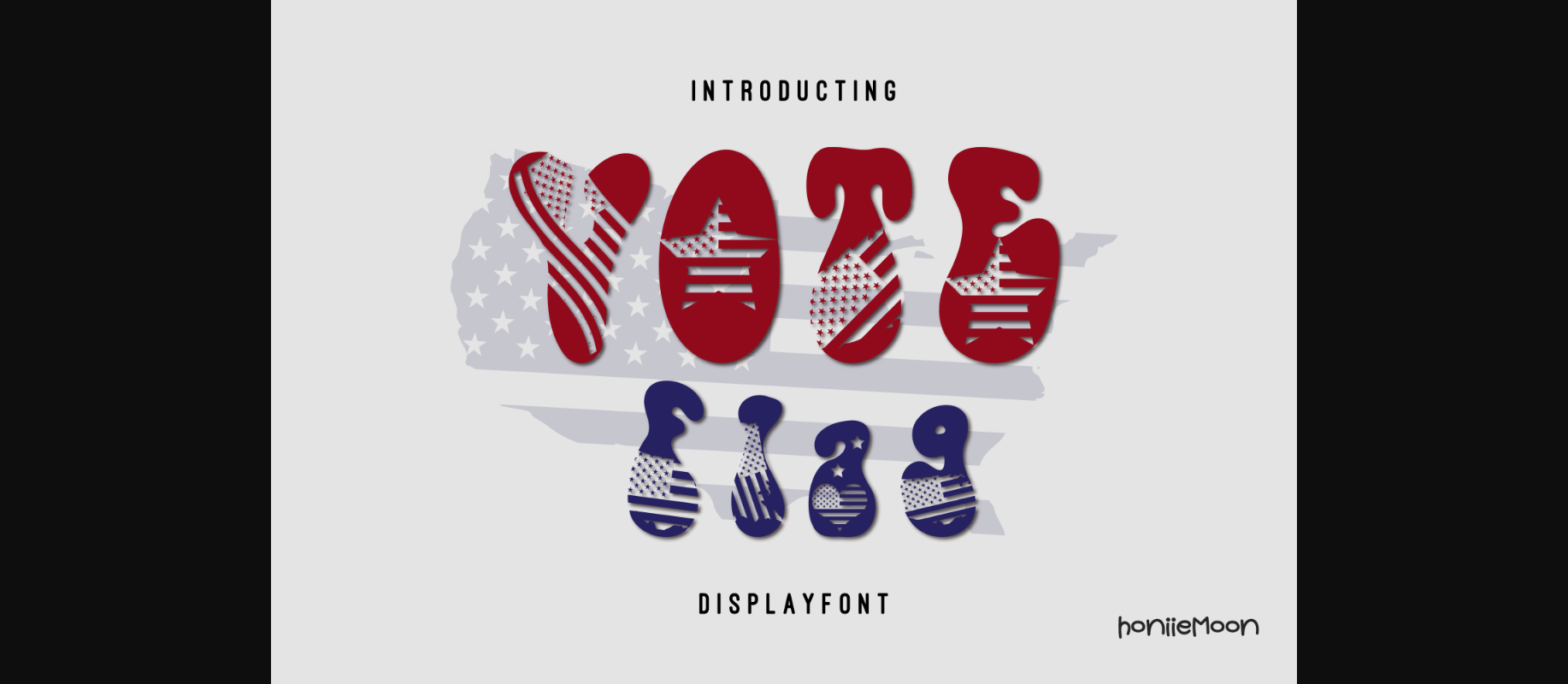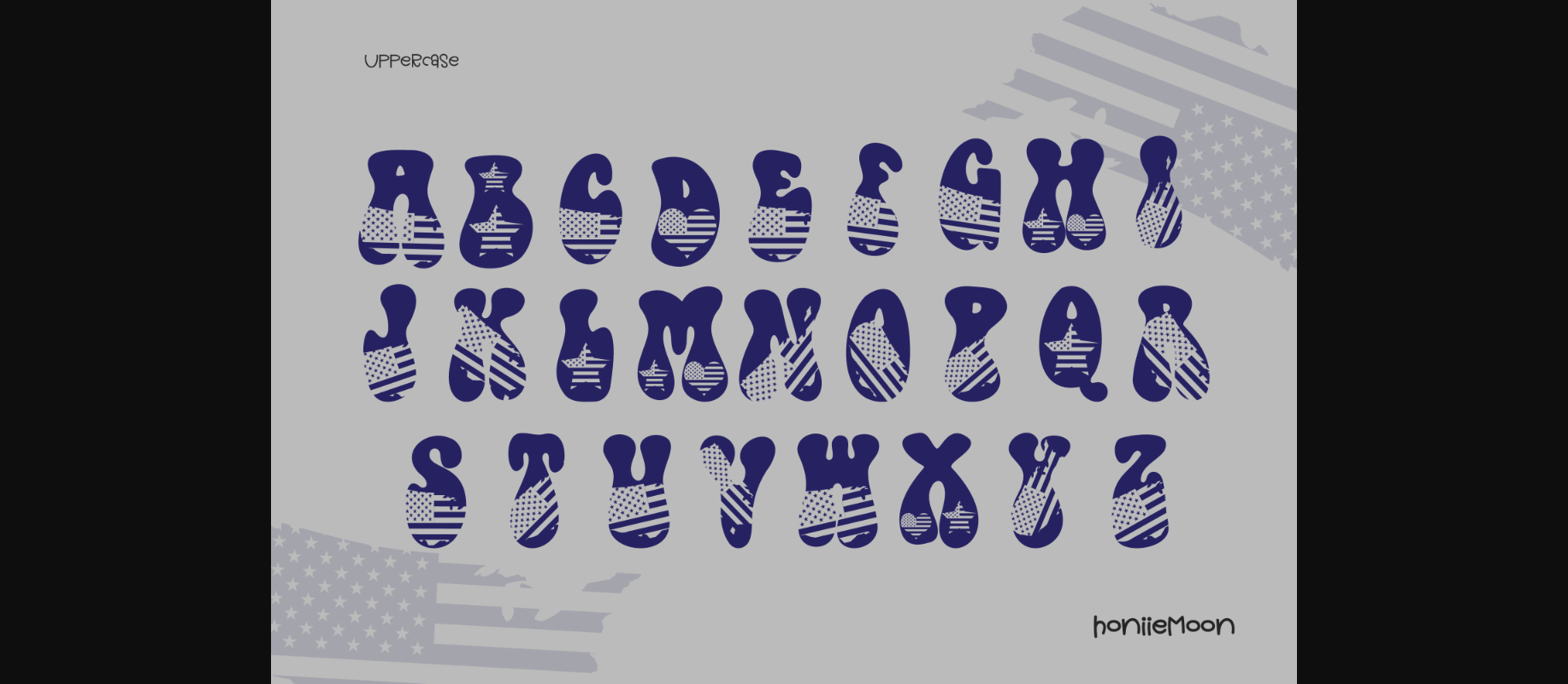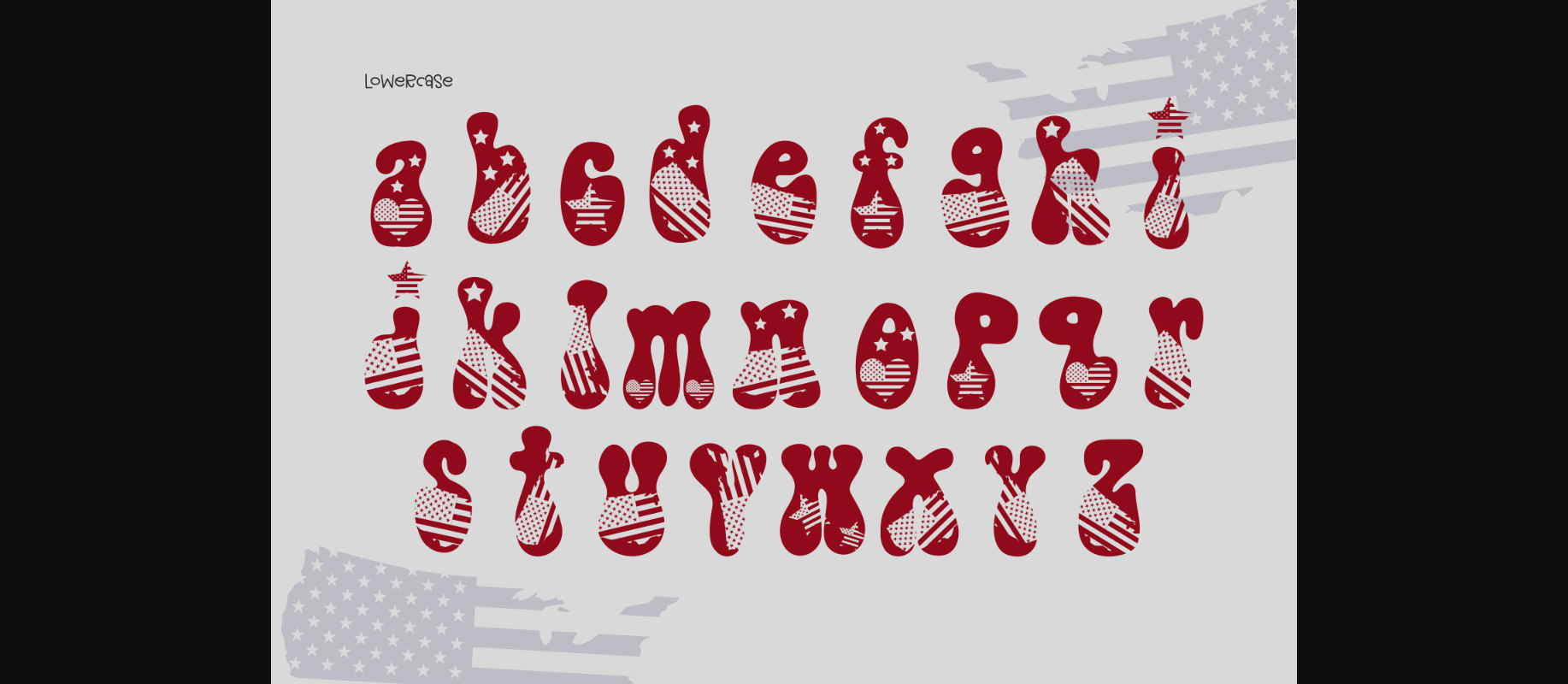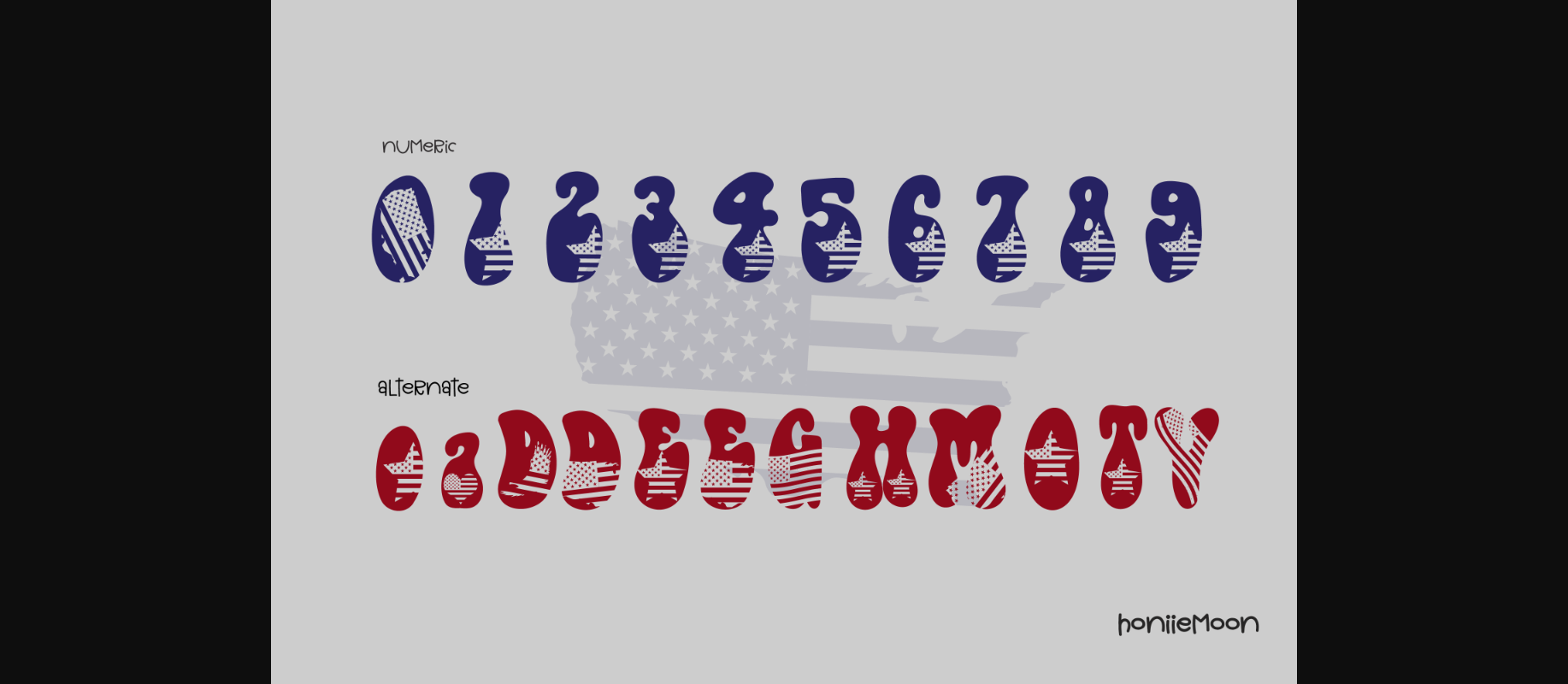
HomeDecorative FontsVoteflag Font Decorative Fonts Voteflag Font FacebookXPinterestWhatsApp 1 of 6 ... Voteflag Font Poster 2... Voteflag Font Poster 3... Voteflag Font Poster 4... Voteflag Font Poster 5... Voteflag Font Poster 6... About Voteflag Font Voteflag is a fun and incredibly unique decorative font. It can be used for various design ideas, particularly those related to the American Election. DOWNLOAD NOW People also explored Sandy Rill Font Alabama Signature Galont Font Emily Notes Font Santha Cruze Font Gebby Font Valentines White Coffee Mug Mock up Ritualist Perfect Sweetness Font 409 0 TagsVoteflag Font Previous articleTurtle FontNext articleAutumn Font LEAVE A REPLY Cancel reply Comment: Please enter your comment! Name:* Please enter your name here Email:* You have entered an incorrect email address! Please enter your email address here Website: Save my name, email, and website in this browser for the next time I comment. Personal Use Free Starborn Font Personal Use Free Read more about this font Lumber Personal Use Free Read more about this font Leadent Script Personal Use Free Read more about this font Bajt Rounded Personal Use Free Read more about this font BLOG Exploring Font Trends Shaping Communication in the Digital Era Fonts, like all design elements, are subject to trends. They play a crucial role in communicating a brand's personality,... Free Fonts Risk: Why Free Fonts Can Be Dangerous for Designers Fonts That Capture the Spirit of New York City Free vs Paid Fonts: Why Investing in Premium Fonts Is Worth It